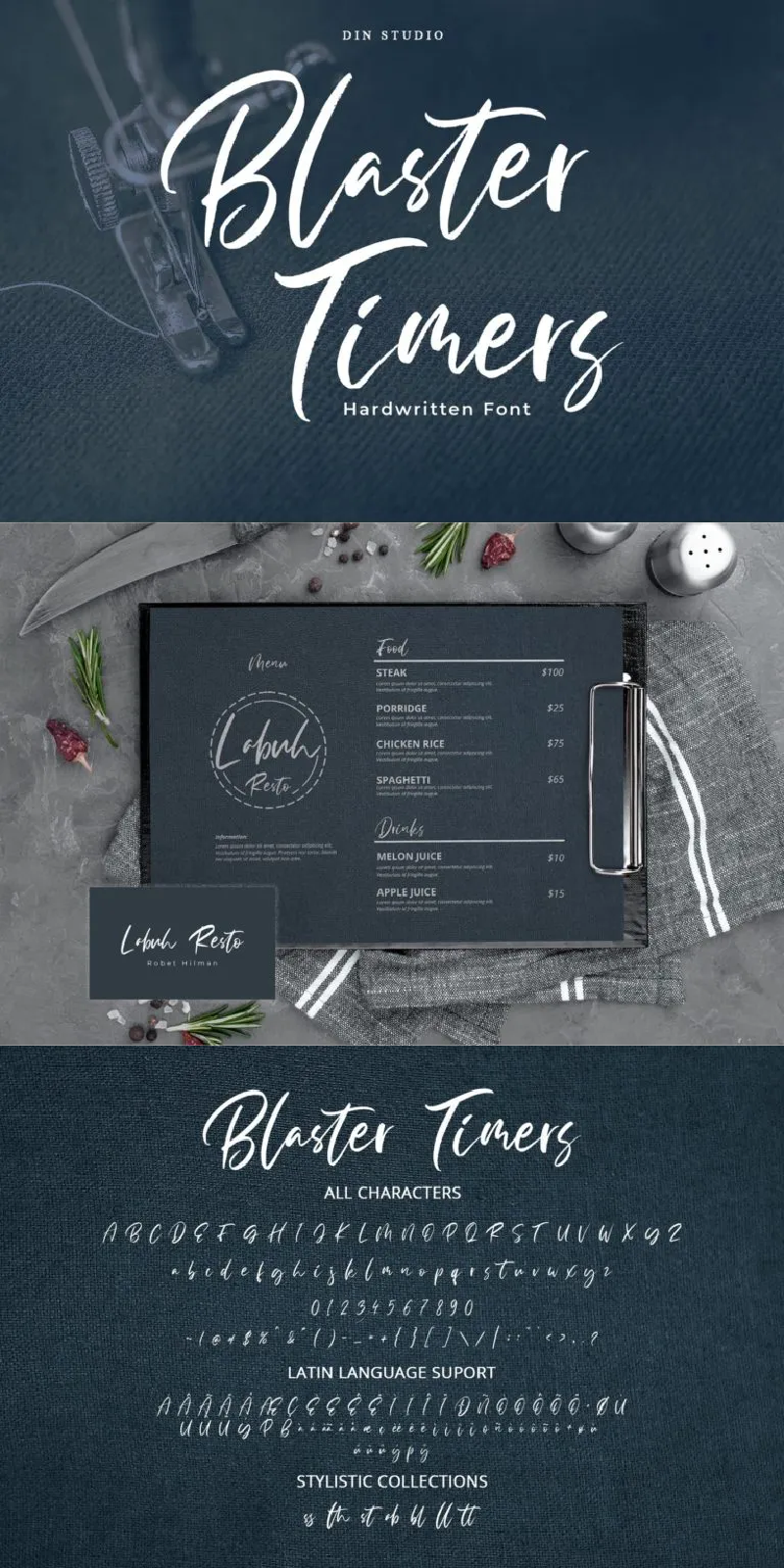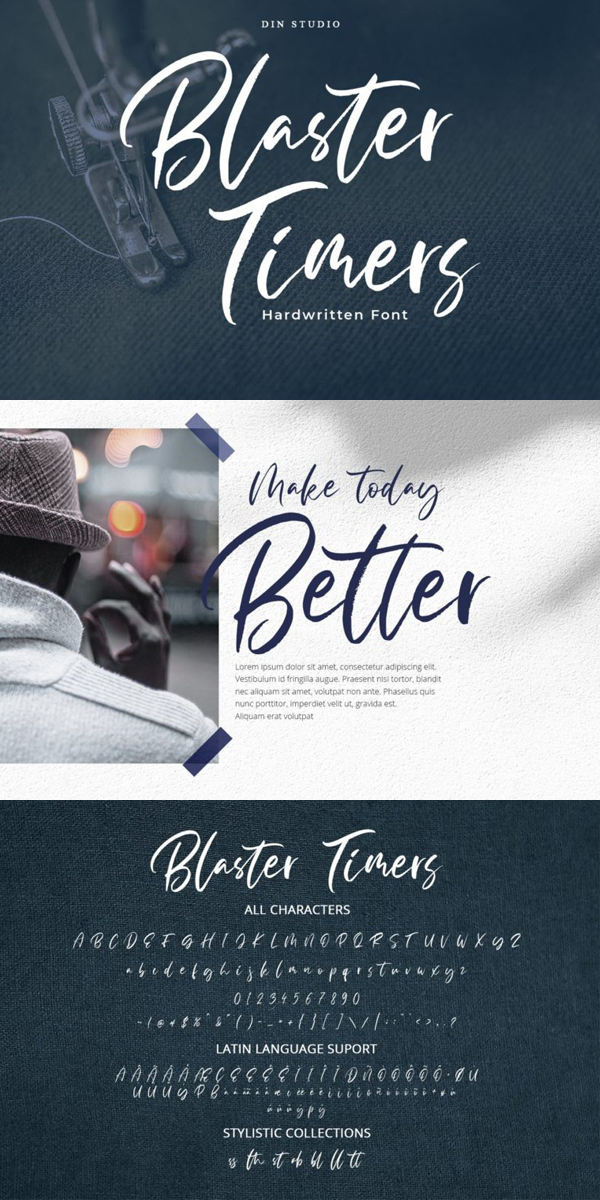
Blaster Timers Font
About Blaster Timers
Blaster Timers is a classy brush font. Made for any professional project branding such as social media campaign, ads, invitation, merchandise, and more. Every letter has a unique and beautiful touch. The font includes full set of hand lettered uppercase and lowercase letters, numerals, punctuation, and ligatures.